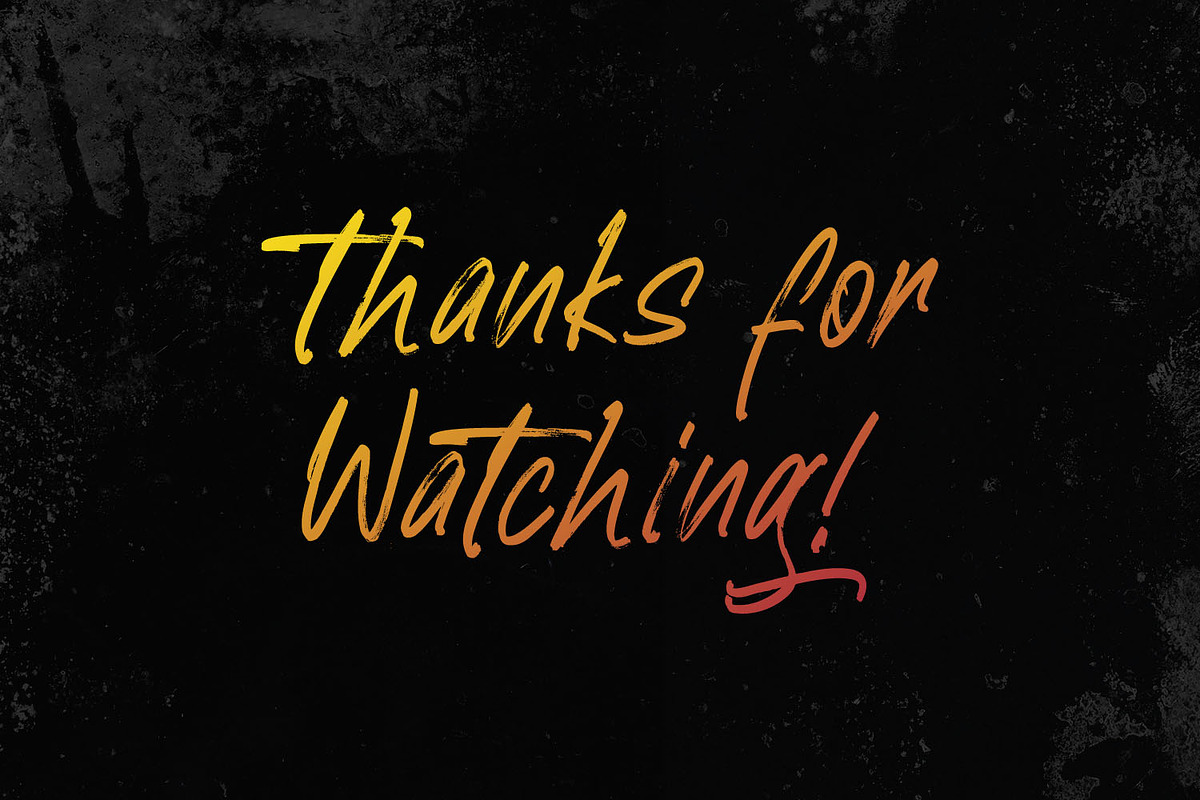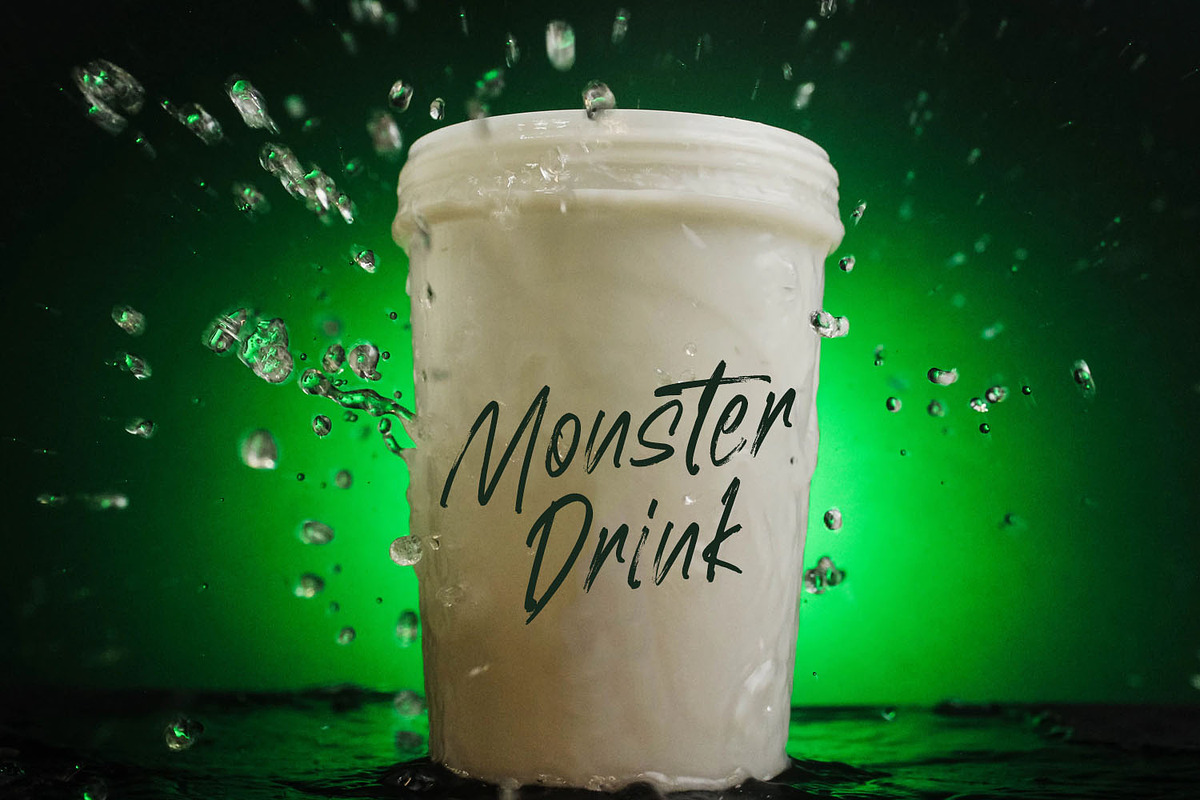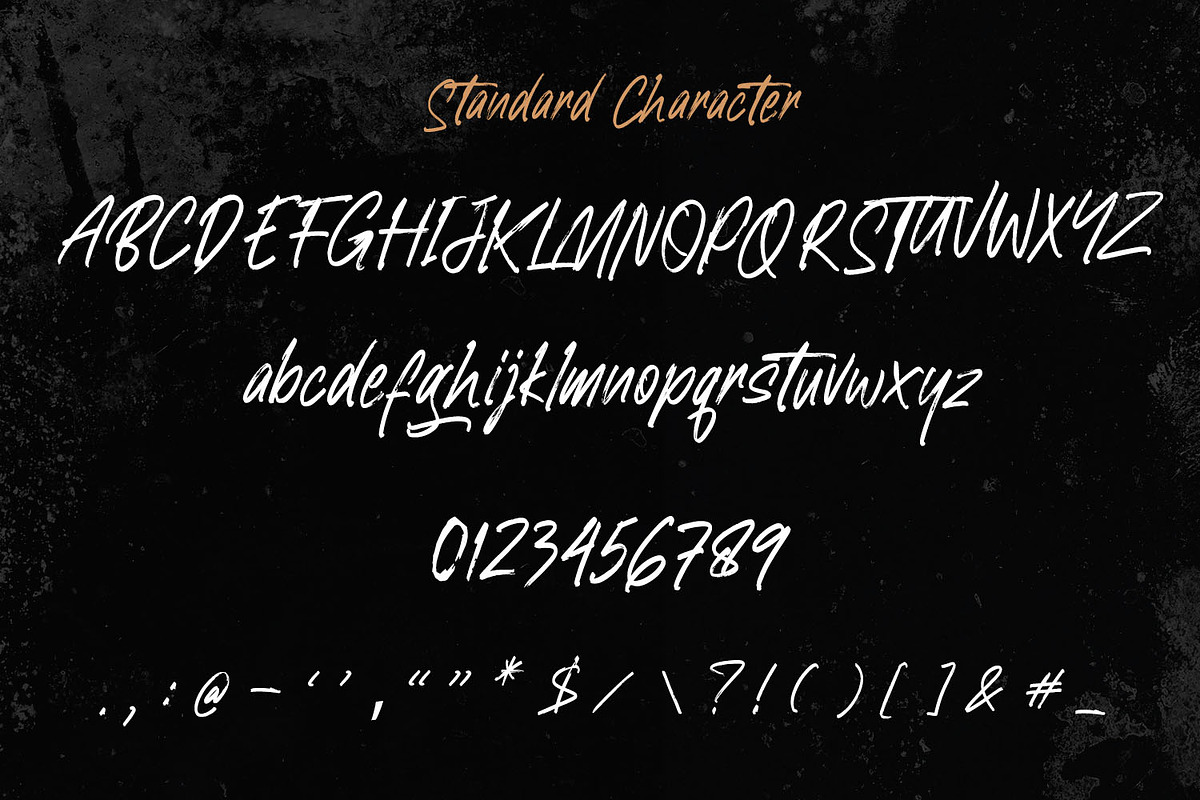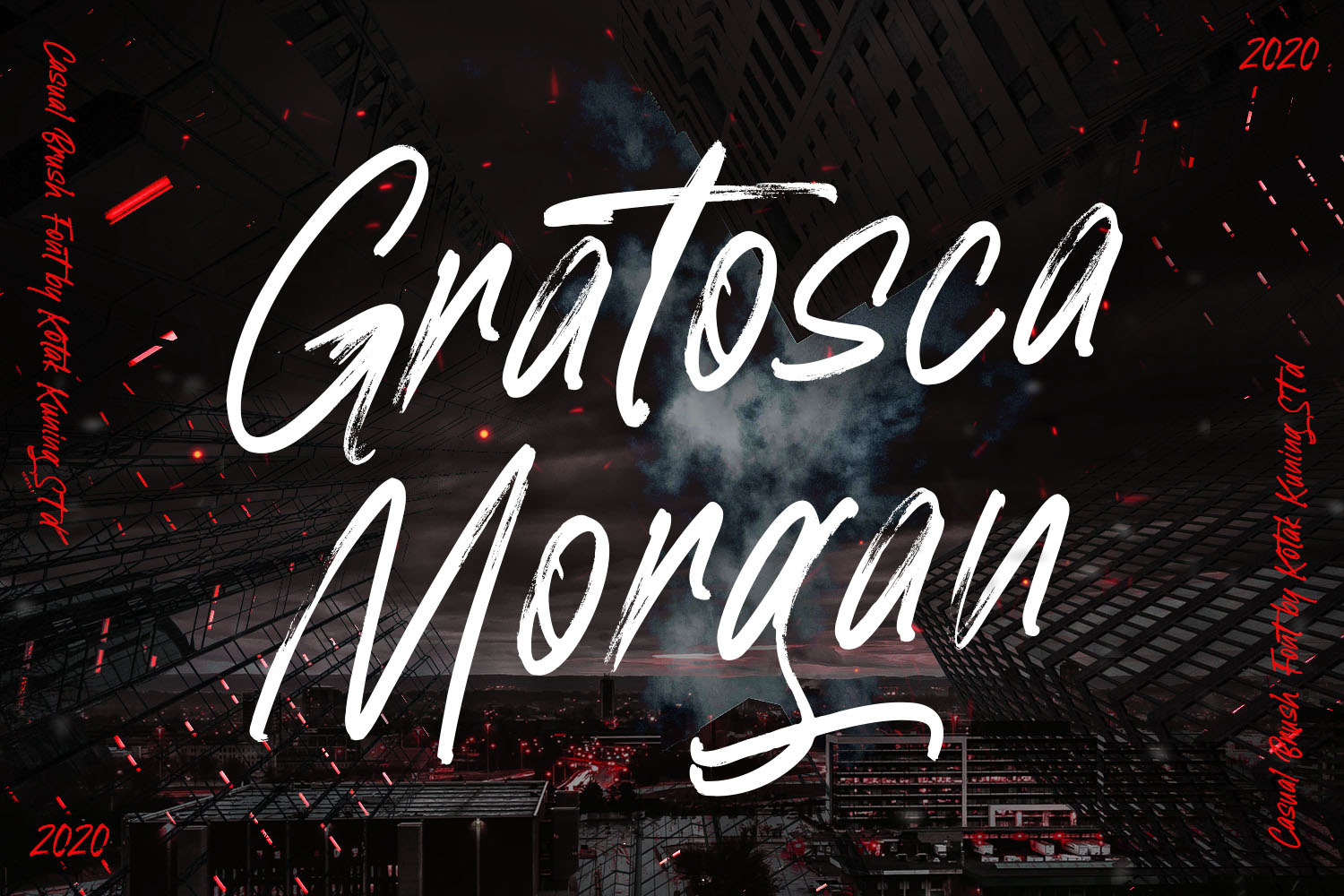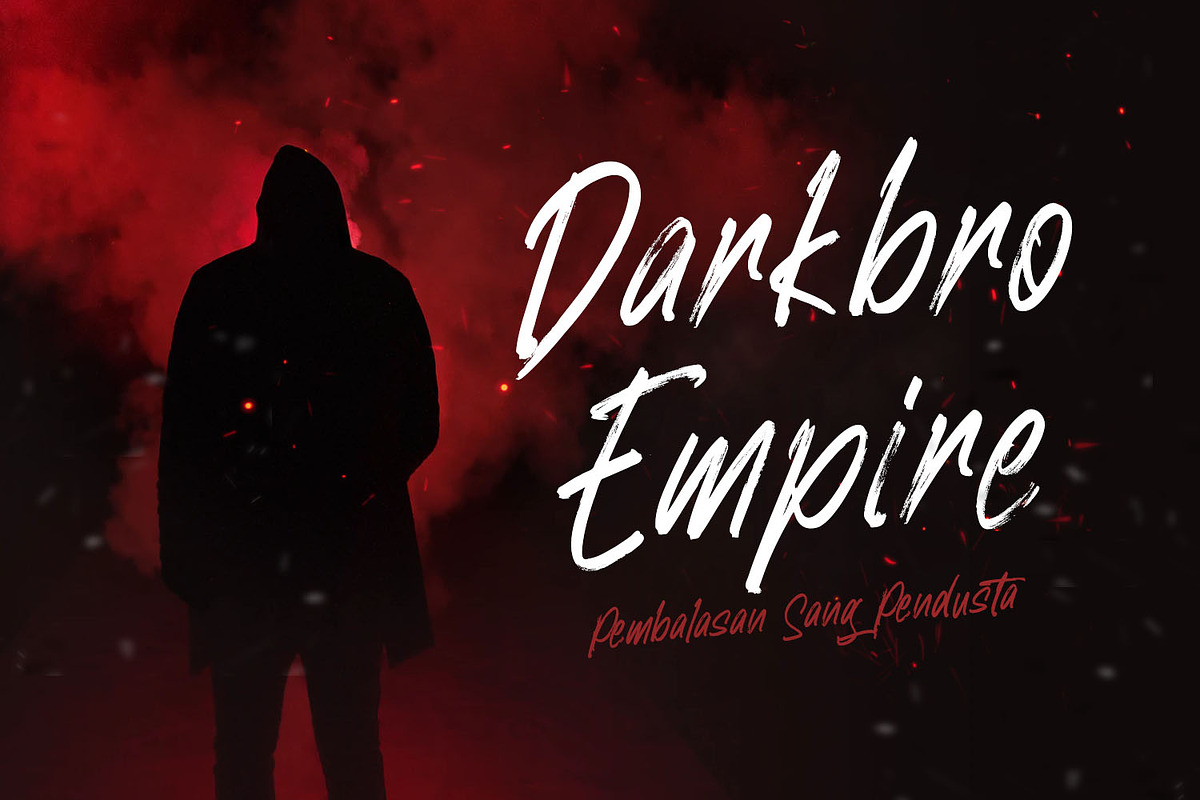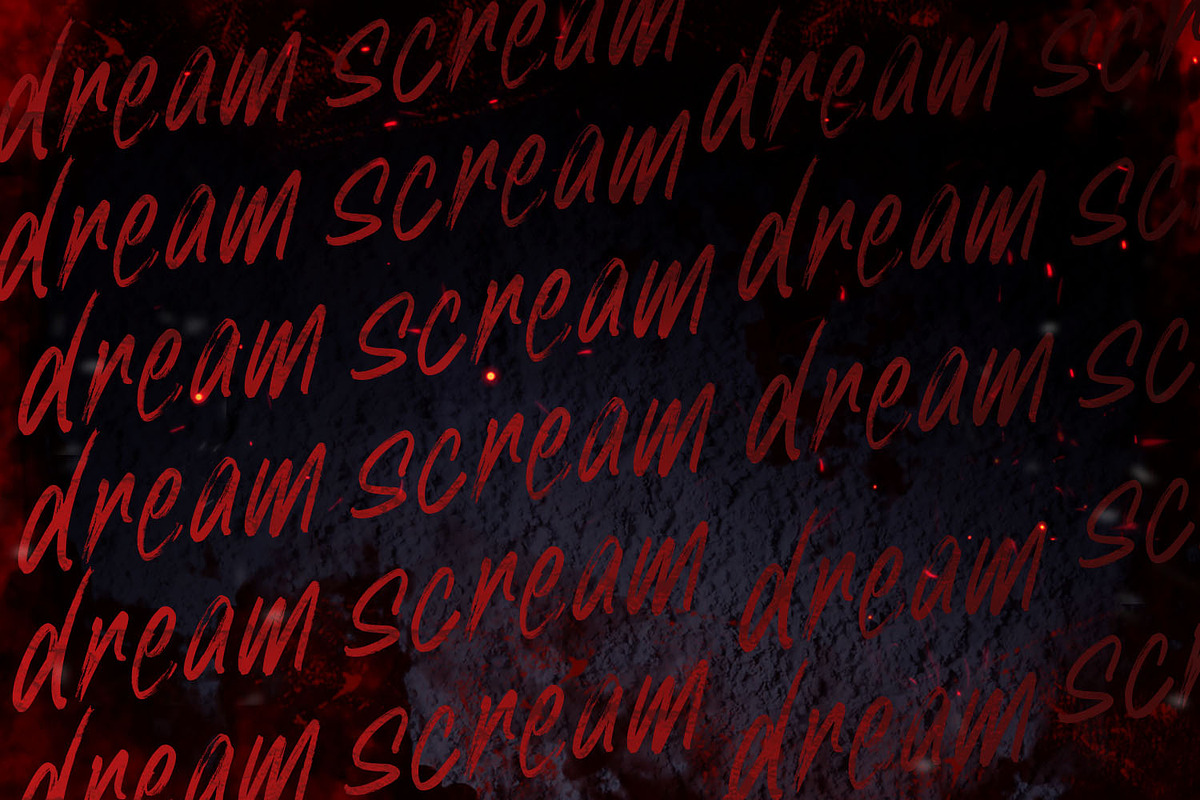
Gratosca Morgan Brush Font
Gratosca Morgan is a casual display brush font, created by using a dry brush pen. This font is the perfect fit for all of your logos, branding, social media, and crafty DIY projects.
This font is suitable to use as a logotype, product designs, label, watermark, social media posts, apparel, invitation, signboard, sports club, motor/car, special events or anything that need handwriting taste.